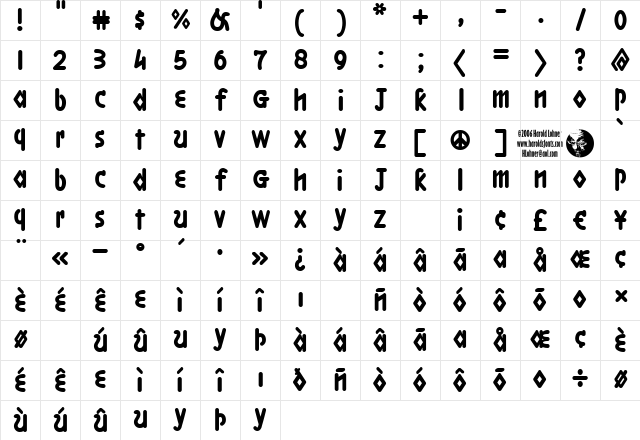
Boston LineBold Regular Free Font
Boston LineBold Regular
Design Context for Boston LineBold
Boston LineBold is a composed and adaptable typeface that performs quietly and consistently across a wide range of design contexts. Its bold stroke weight gives it real presence on the page.